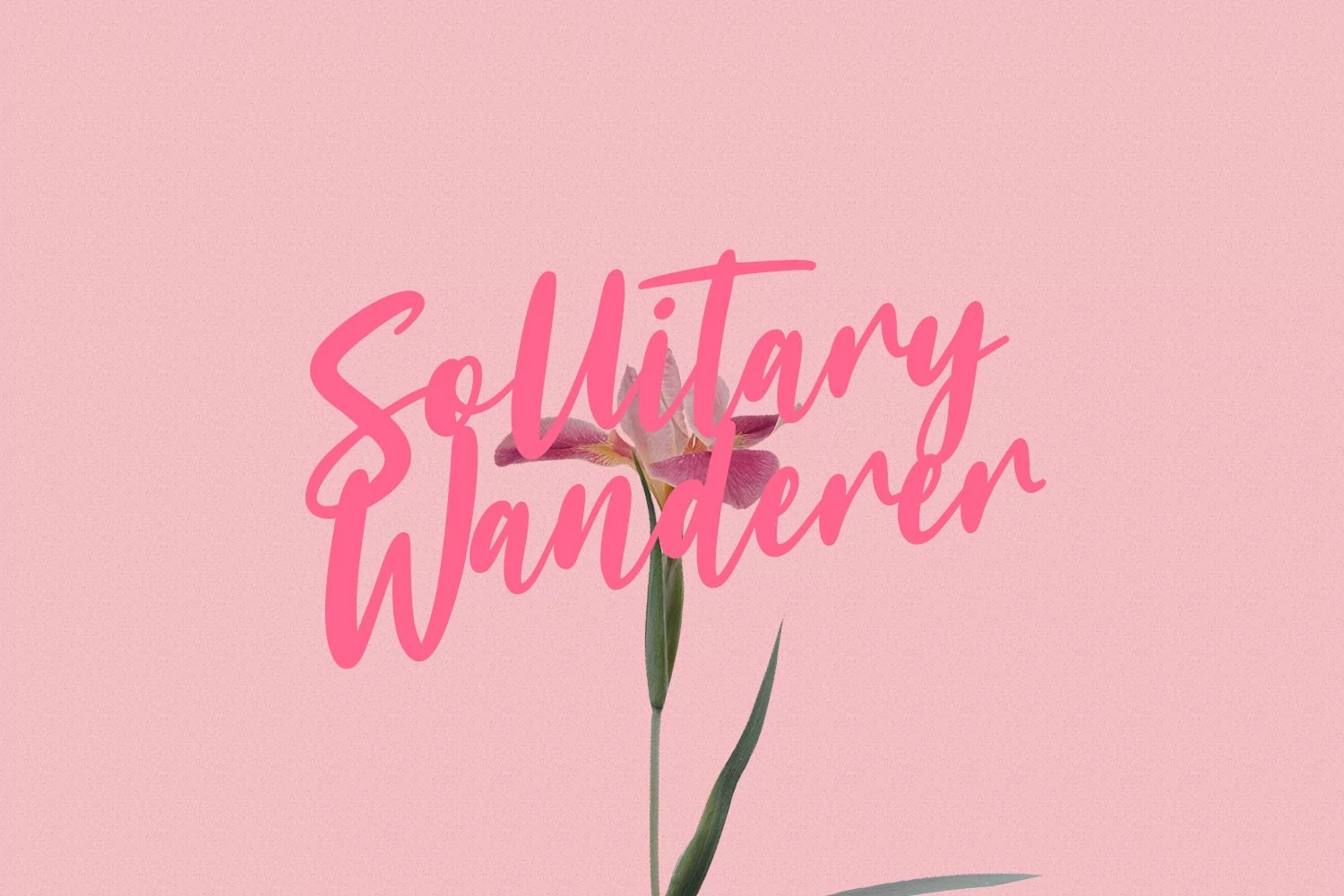
Sollitairy is casual script font, with bold stroke, slant and fun character. It has Opentype features ligatures of character and alternative lowercase option, To give you an extra creative work. Sollitairy script font support multilingual more than 100+ language. This font is good for logo design, Social media, Movie Titles, Books Titles, a short text even a long text letter and good for your secondary text font with sans or serif. Make a stunning work with Sollitairy font.